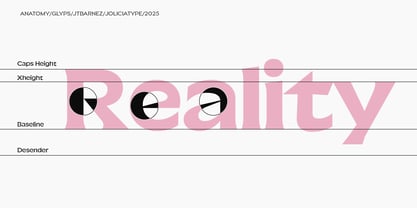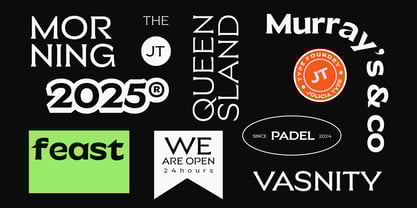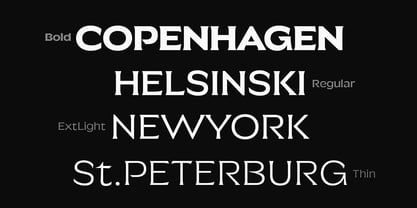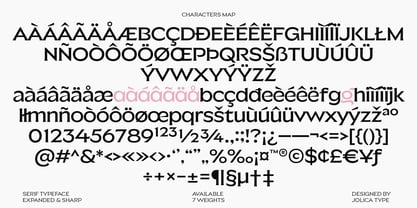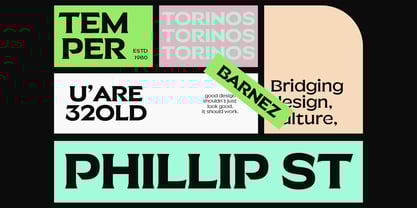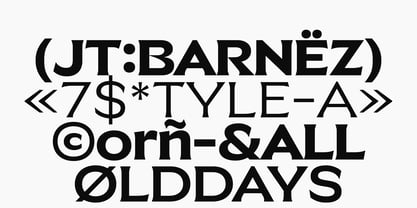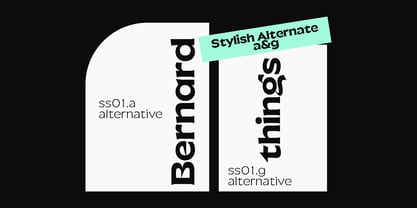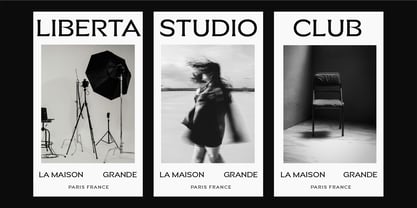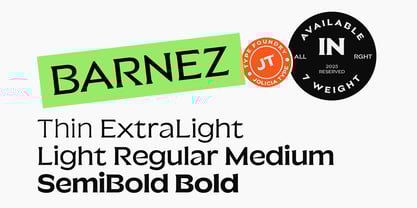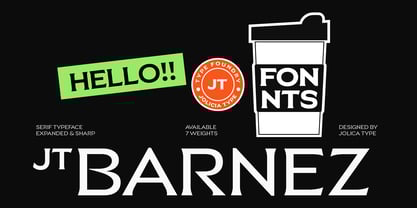
Jt Barnez
von Jolicia Type
Die Schriftfamilie Jt Barnez wurde von Laire Banyu entworfen und von Jolicia Type veröffentlicht. Jt Barnez enthält 7 Stile und Familienpaketoptionen.
JT Barnez is a refined hybrid typeface that elegantly merges the subtle sophistication of a serif with the clarity of a clean sans-serif. With expanded proportions and precise, sharp detailing, it offers a bold visual presence while embodying a modern, minimal, and effortless aesthetic. The serif elements are intentionally subtle, almost invisible, creating a smooth fusion that feels contemporary, stylish, and forward-thinking. Each character is crafted with crisp edges and thoughtful spacing, resulting in typography that exudes confidence, structure, and visual impact. JT Barnez is available in 7 weights: Thin, Extra Light, Light, Regular, Medium, SemiBold, and Bold. From delicate editorial accents to strong typographic statements, this typeface adapts seamlessly across various styles and scales, making it versatile for a wide range of design applications.